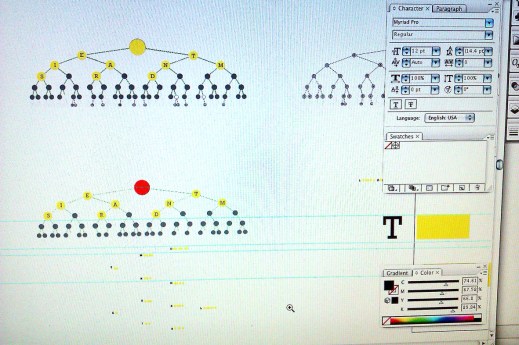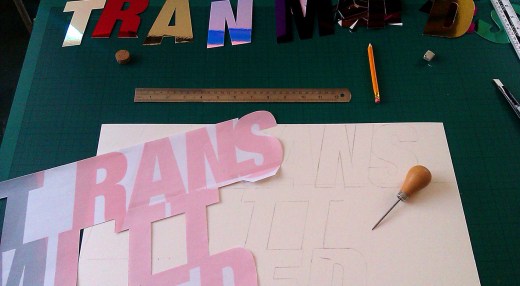
‘Transmitted’ by Julieta Hernandez
“I picked transmission as it immediately made me think about the piece of the Atlantic Telegraph Line that is at the Faraday Museum, which represents in a way one of the things I love most about London and Britain in general, homeland to great scientists and inventions that have changed our world.”
“The first approach was via Morse code, so in came the dichotomic search tree, unsatisfied I kept on researching and came across Chappe’s Telegraph which gave me the idea on the frequency of the transmission of a word but not necessarily attached to syllable cutting. It also made me think about the fact I wanted it to look like something that ‘dangles’ from a telegraph line.”
“The piece was also influenced on Faraday’s work on electromagnetism and waves transmission, visually I draw upon James Clerk Maxwell’s triangle and the Chromaticity chart.
“By that time I was so engrossed on the structural look of the piece that I forgot about the fact it needed to be a one line piece. Sarah was patient and kind enough to help me come across a solution that will remain loyal to the initial idea, and now it also looks like an early 1970’s television logo, if you know which one we mean let us know as we couldn’t remember!”
‘Transmitted’ by Julieta Hernandez is one of the words that will be displayed at Type Tasting with the London Design Festival 2013 at the V&A.